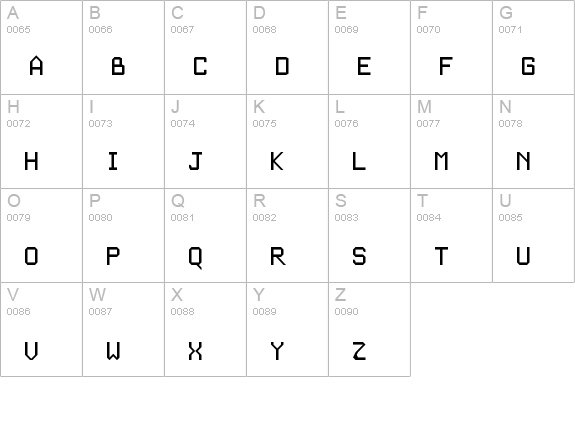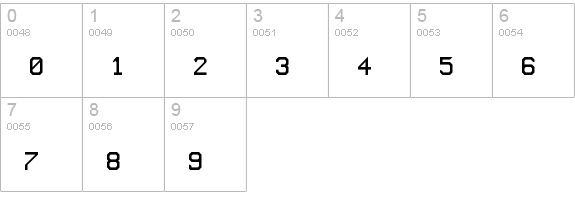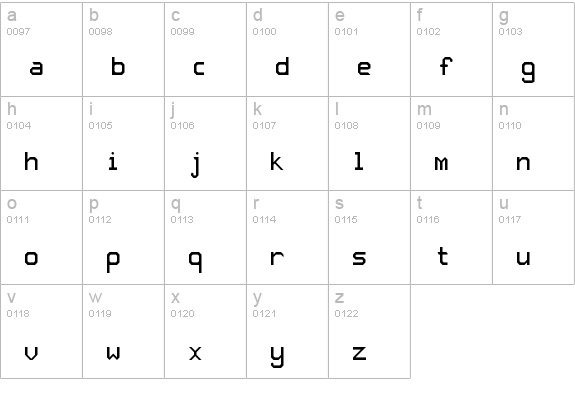
JD Nadia Regular is the standard, neutral variant in the JD typeface family \xE2\x80\x94 well suited to general body text, paragraphs, and standard typographic work.
JD Nadia Regular is a modern and elegant font that exudes sophistication and style. With its clean lines and balanced proportions, this font is the perfect choice for a wide range of design projects, from branding and packaging to editorial and display purposes. The versatility of JD Nadia Regular lies not only in its design, but also in its availability. This font is freely available to download at FontsMarket.com, making it accessible to designers and enthusiasts alike. Whether you're a professional graphic designer or a hobbyist looking to add a touch of elegance to your creations, JD Nadia Regular is the ideal choice. This font features a wide range of characters, including uppercase and lowercase letters, numbers, punctuation marks, and special symbols. The attention to detail in each glyph is evident, with carefully crafted curves and precise spacing that ensure a harmonious and visually pleasing result. The timeless and classic design of JD Nadia Regular makes it suitable for a variety of design styles, whether it be modern and minimalist or vintage and retro. Its versatility allows it to seamlessly adapt to different design elements and layouts, making it a valuable addition to any designer's toolkit. Whether you're working on a logo, a website, a poster, or any other design project, JD Nadia Regular will elevate your creations to new heights. Its clean and legible design ensures readability across different mediums, while its elegant and sophisticated aesthetic adds a touch of refinement. In conclusion, JD Nadia Regular is a free font that combines modernity with elegance. Its availability at FontsMarket.com ensures that it is easily accessible to designers and enthusiasts, allowing them to create beautiful and captivating designs. With its timeless appeal and versatility, JD Nadia Regular is a must-have font for any design project.